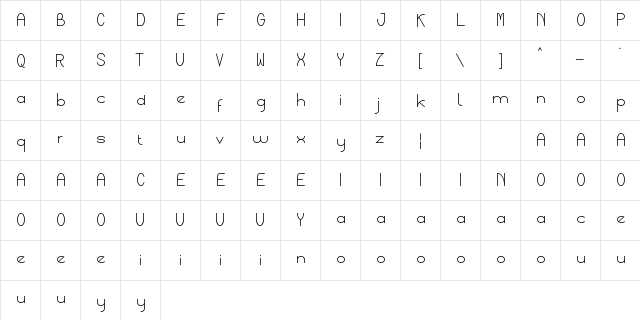
Braxline Narrow Regular
Design Context for Braxline Narrow Typeface
Braxline Narrow is a composed and adaptable typeface that performs quietly and consistently across a wide range of design contexts. Its narrow stance lets it pack a punch even in space-constrained designs.